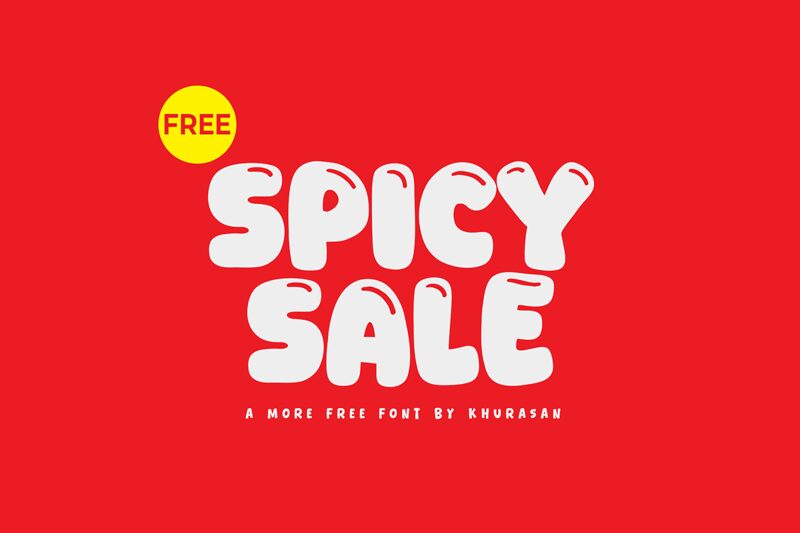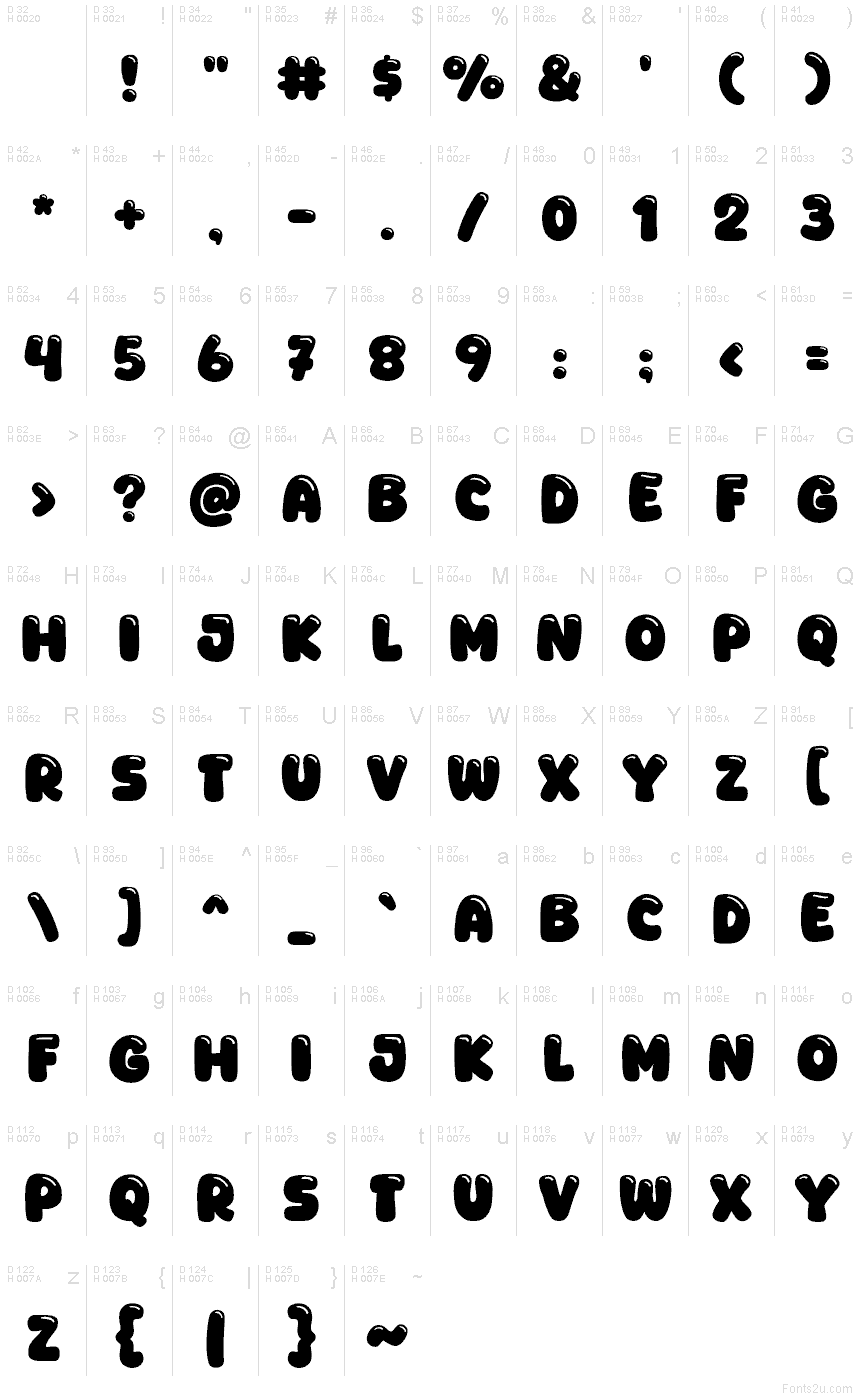
Spicy Sale font by Khurasan is a free cartoon display typeface that grabs attention like a glossy sticker. Its chunky, rounded shapes and inky highlights feel squishy and bold, so numbers and short words pop at a glance. Sturdy forms and tight rhythm make it easy to scan from a distance-great when you’ve got one second to shout a deal.
Using Spicy Sale, headlines jump on flash sale banners, price tags, storefront posters, snack or toy packaging, food‑truck menus, kids’ event flyers, and YouTube thumbnails. This free font shines when set big and punchy; keep lines short and tracking snug. For supporting text, pair it with a clean geometric sans to balance the playful energy.